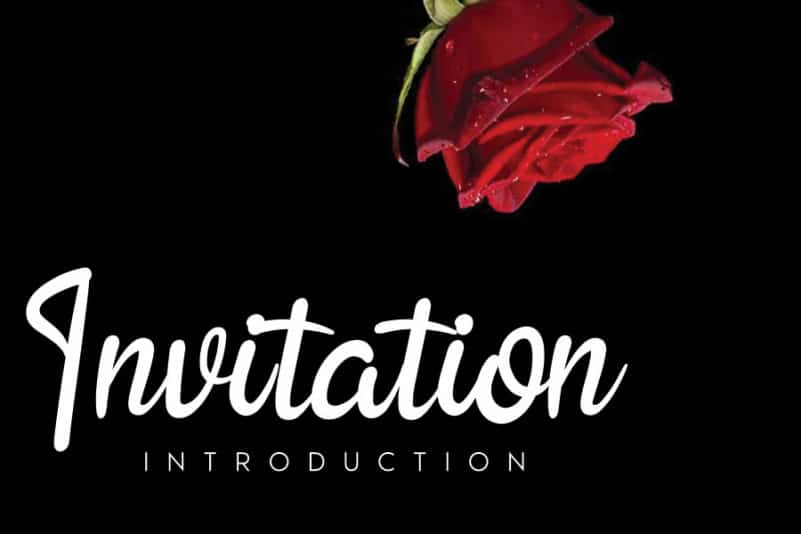
Ralliguta Handwritten Font
Ralliguta Handwritten Font feels equally charming and distinct. It looks stunning on wedding invitations, thank you cards, quotes, greeting cards, logos, business cards and every other design which needs a handwritten touch.
The latest style letters are perfect for wall displays, wedding invitations, social media post logos, advertisements, product packaging, product designs, labels, photography, watermarks, invitations, stationery, and any project that requires taste handwriting.